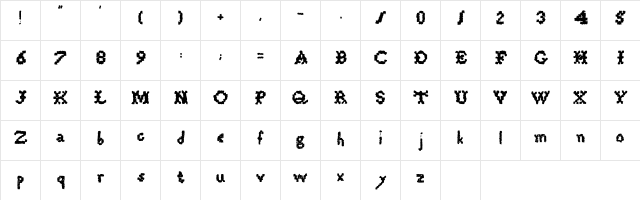
Martha_stapleton Regular
Design Context for Martha_stapleton Typeface
Martha_stapleton is a composed and adaptable typeface that performs quietly and consistently across a wide range of design contexts.